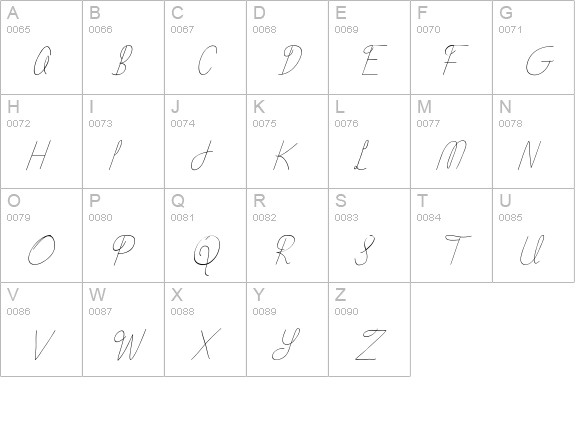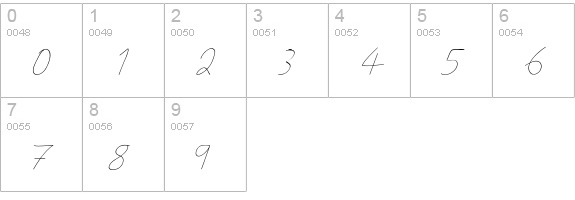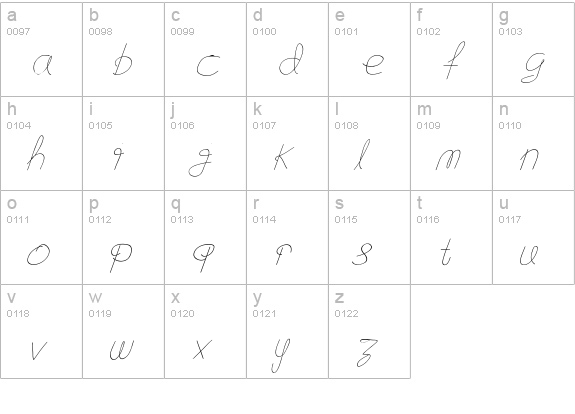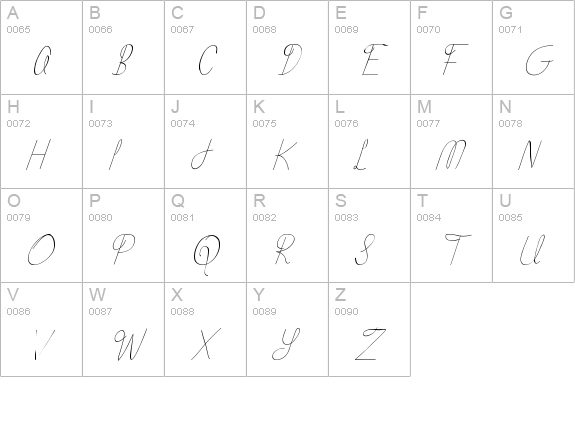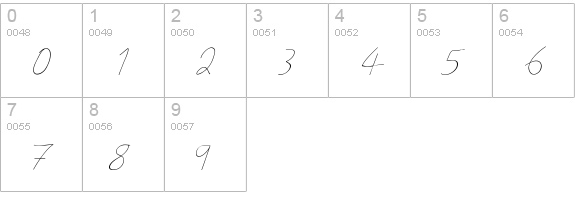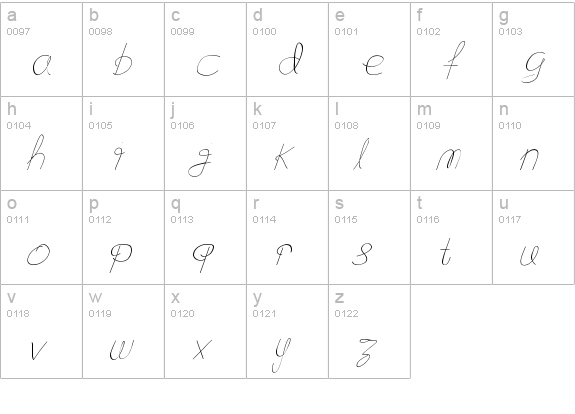
Flying Without Wings Font Details
Introducing Flying Without Wings, a captivating and versatile font that exudes an ethereal charm. This font effortlessly combines elegance with a touch of whimsy, making it the perfect choice for a wide range of design projects. Its graceful curves and delicate lines create a sense of lightness and airiness, giving your text a graceful and enchanting appearance. Flying Without Wings is freely available to download at FontsMarket.com, allowing you to bring a touch of magic to your designs without any constraints. Whether you are designing a wedding invitation, a logo, a website, or any other creative endeavor, this font will elevate your work to new heights. Its refined details and unique letterforms add a sense of sophistication, creating a visual experience that is nothing short of extraordinary. This typeface is incredibly versatile, offering a variety of weights and styles to suit any design need. From the sleek and modern Thin weight to the bold and impactful Black weight, Flying Without Wings allows you to effortlessly convey different moods and messages. Its extensive character set includes uppercase and lowercase letters, numerals, punctuation marks, and a wide range of special characters, ensuring that you have all the tools you need to bring your creative vision to life. With Flying Without Wings, you can soar above limitations and explore the boundless possibilities of typography. Let this font be your wings, guiding you to create stunning and memorable designs that leave a lasting impression. Download this font for free at FontsMarket.com and unlock the true potential of your creativity.